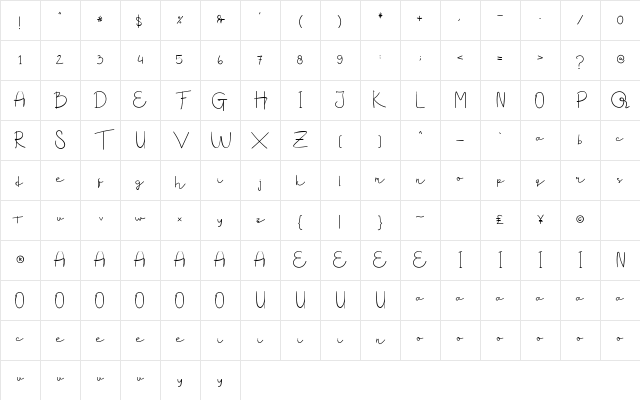
Complete Glamor Signature Regular glyph index. Displaying only characters natively supported by Glamor Signature Regular font.
Glamor Signature is a composed and adaptable typeface that performs quietly and consistently across a wide range of design contexts.